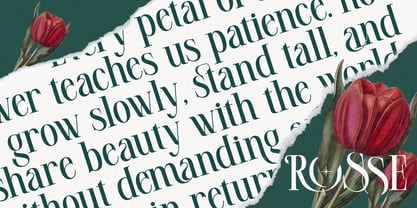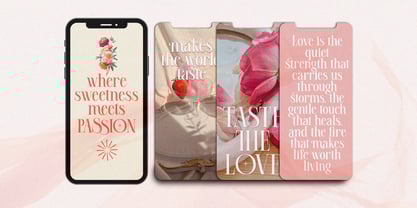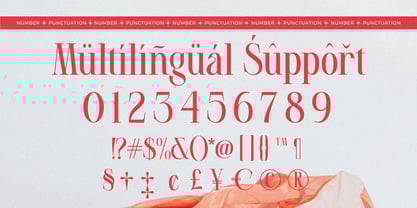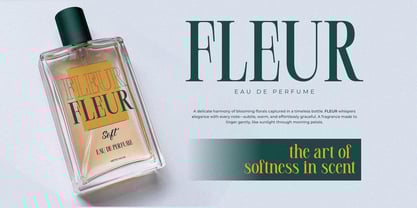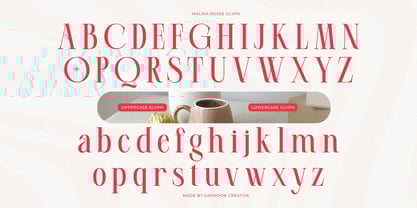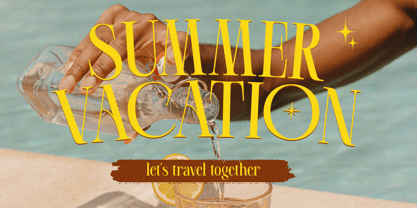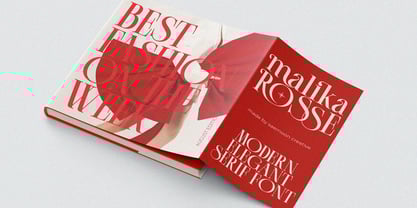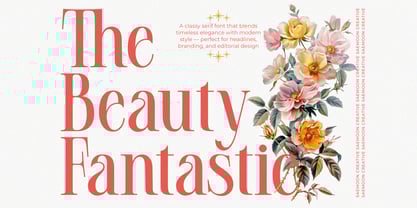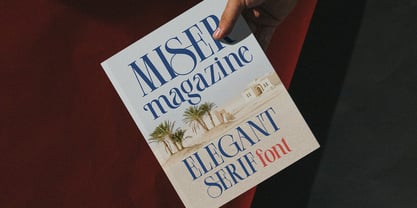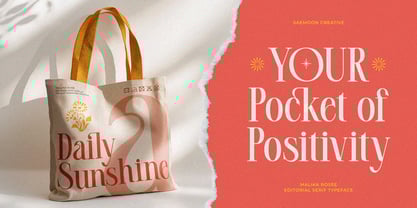
Malika Rosse
by Saemoon Creative
The Malika Rosse Font Family was designed by Sapto Susilo and published by Saemoon Creative. Malika Rosse contains 2 styles and family package options. More about this family
Malika Rosse – Modern Classy Serif Typeface
Malika Rosse is a modern serif typeface that blends classic elegance with a contemporary touch. Designed with refined details, it offers stylish alternates and unique ligatures that bring sophistication and personality to your typography.
Perfect for logos, branding, editorial layouts, packaging, and headlines, Malika Rosse is versatile yet distinctive, making it ideal for designers who want to add a luxurious feel to their projects.
Features:
• Uppercase & Lowercase
• Numbers & Punctuation
• Stylistic Alternates & Ligatures
• Multilingual Support
Bring timeless elegance into your work with Malika Rosse.
Designers: Sapto Susilo
Foundry: Saemoon Creative